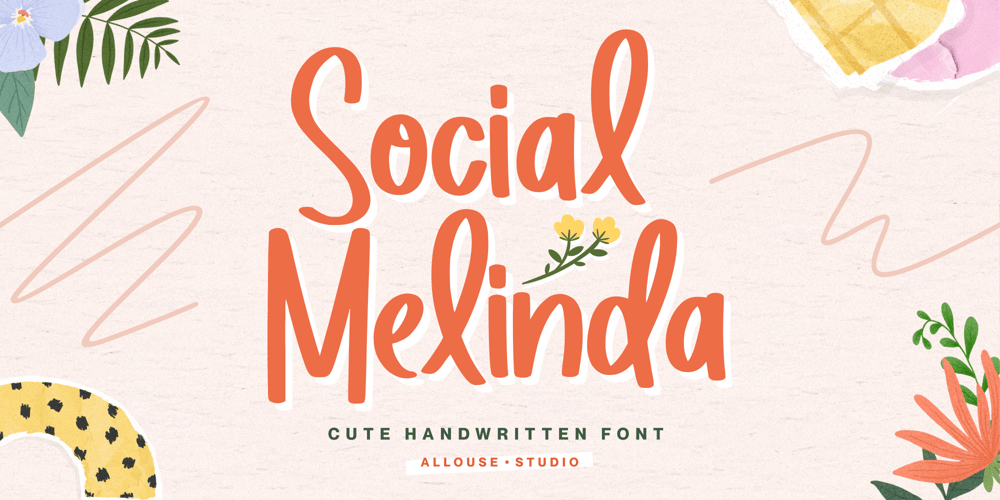
Social Melinda Font Family was designed by Fachrizal Yusuf and published by Allouse Studio. Social Melinda contains 1 styles and family package options. Proudly Presenting, Social Melinda a Cute Handwritten FontSocial Melinda is perfect for any titles, logo, product packaging, branding project, megazine, social media, wedding, or just used to express words above the background.Social Melinda also come with Multi-Lingual Support.Enjoy the font, feel free to comment or feedback, send me PM or email. Thank You!